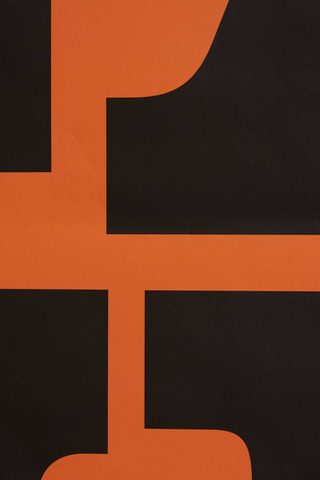
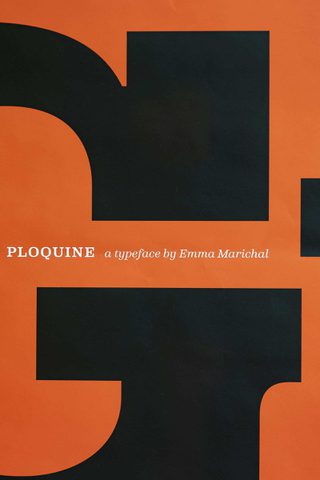
Ploquine poster
Celebrating the release of Emma Marichal’s Ploquine family, winner of the 2022 Gerard Unger Scholarship, this poster brings its distinctive typographic voice into a striking printed composition